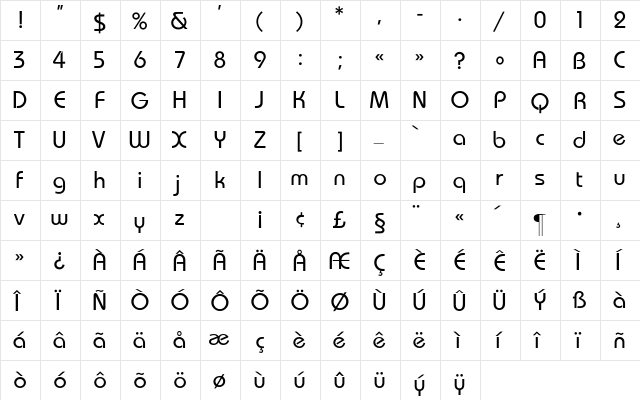
Bauhaus-Medium Regular
Design Context for Bauhaus-Medium Typeface
Bauhaus-Medium offers clean, dependable letterforms without strong stylistic allegiance, making it a practical choice for designers who need flexibility.
Pro Tip: Use Bauhaus-Medium in both headline and body roles to test its range before committing to a single application.